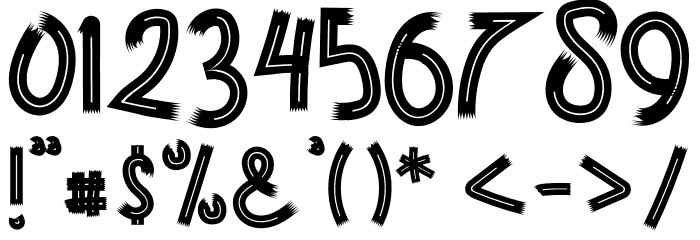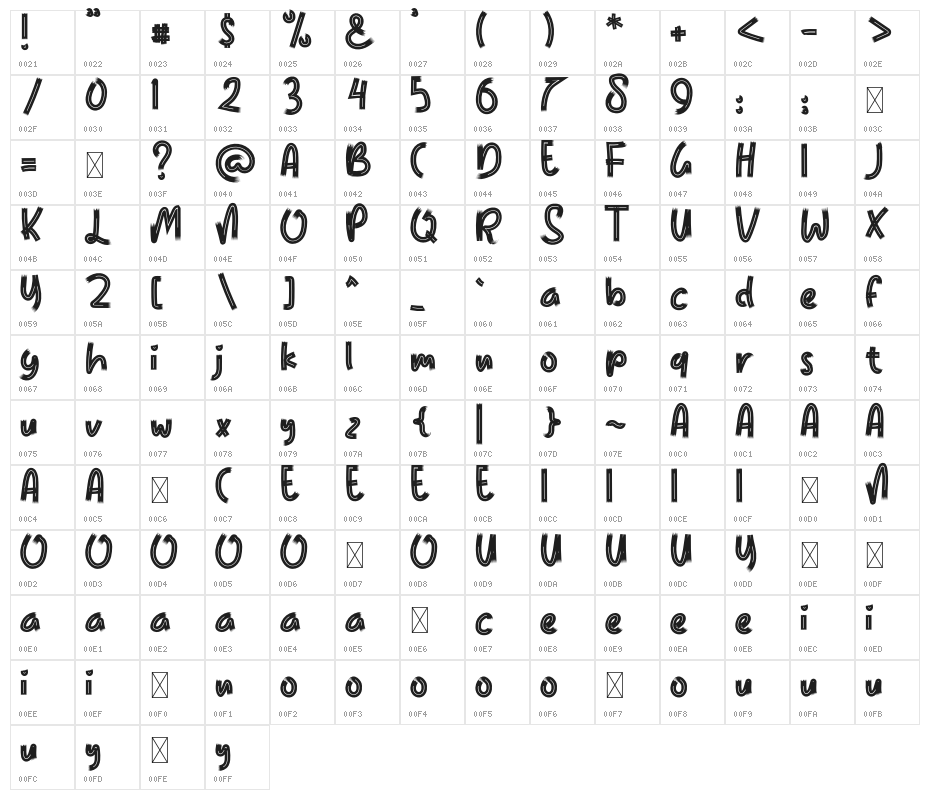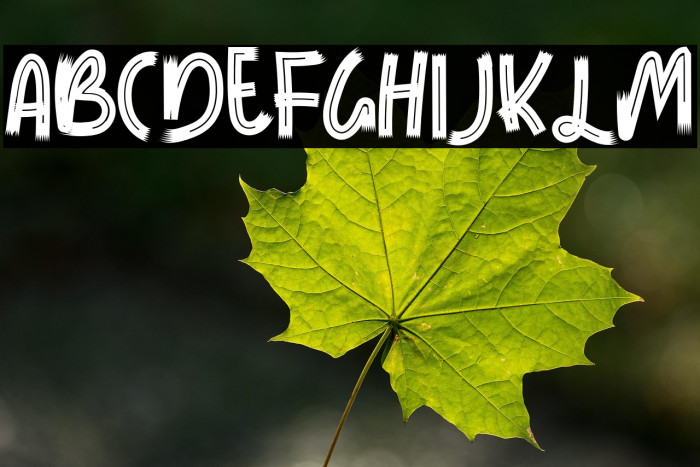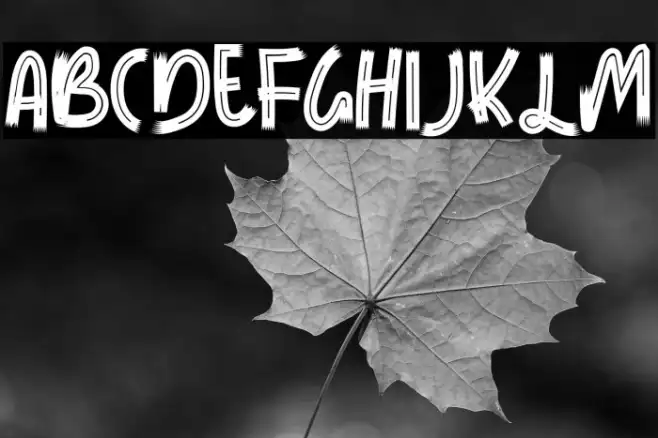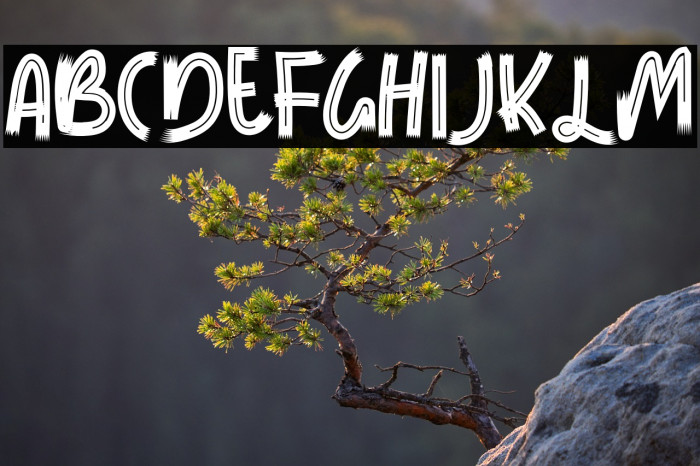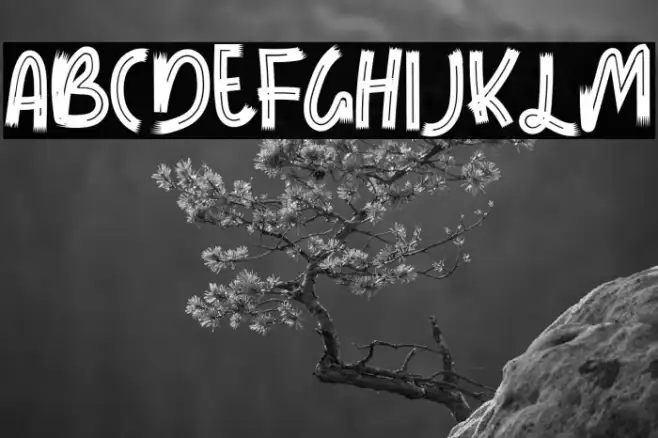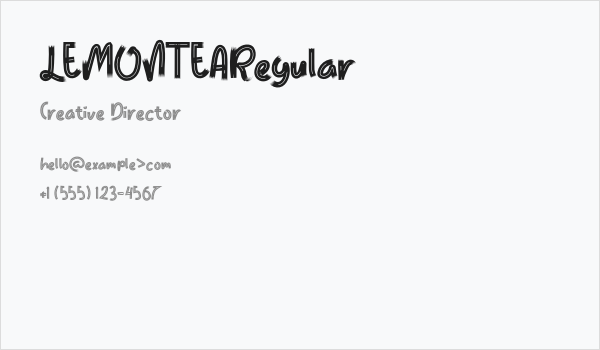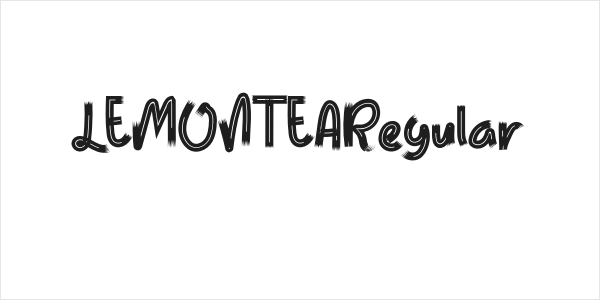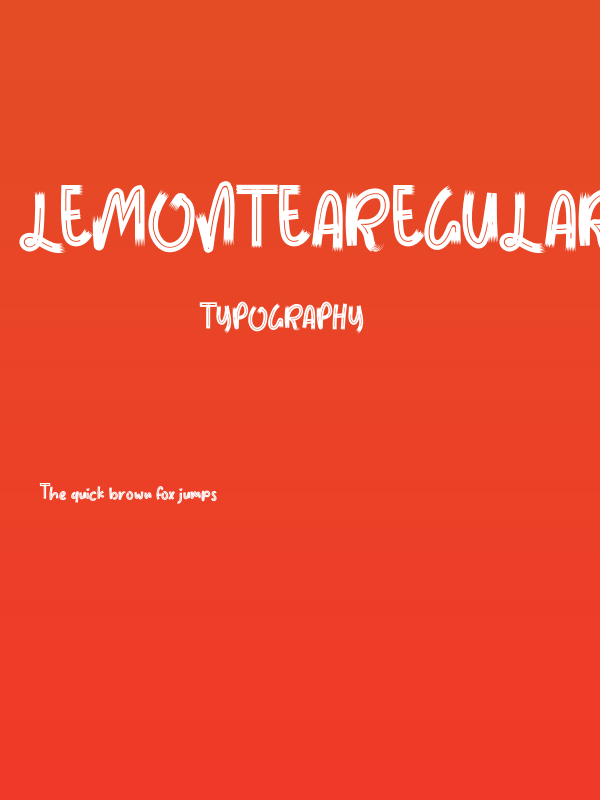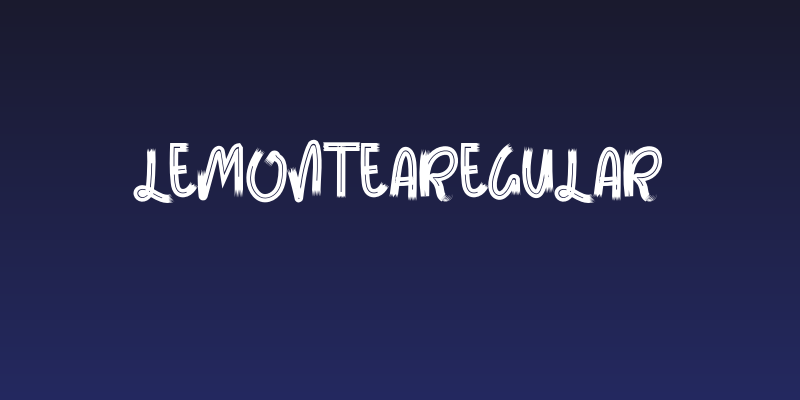
LEMONTEARegular Font
LEMONTEARegular Description
This font features a playful and energetic style with a brush-like texture that gives it a dynamic and lively appearance. The characters have a hand-drawn quality, with irregular strokes and a sense of movement that adds to its whimsical charm. The uppercase and lowercase letters maintain a consistent style, while the numbers and special characters follow suit, ensuring a cohesive look throughout. The font's unique texture and bold presence make it stand out, perfect for projects that require a touch of creativity and fun.
Proposed ProjectsIdeal for children's book covers, playful branding, creative posters, and artistic invitations.